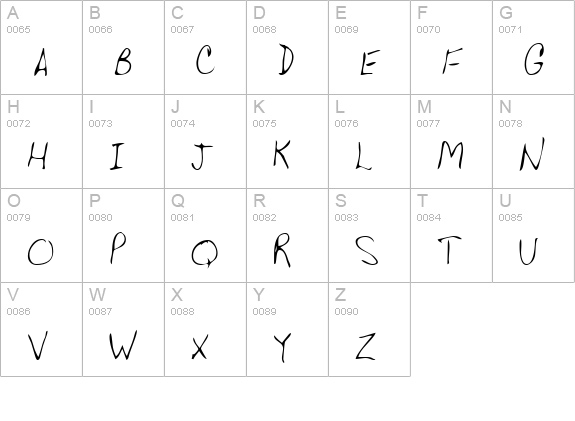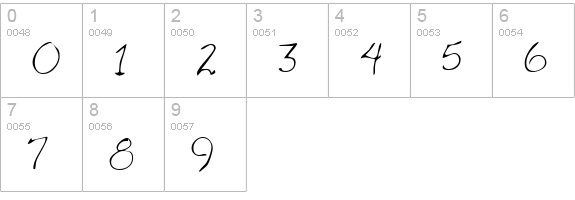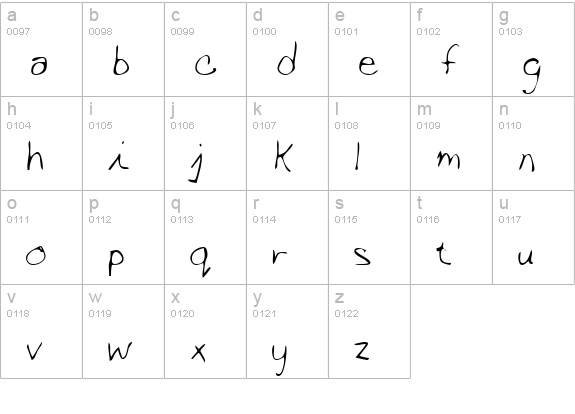
LauriesHand Regular Font Details
LauriesHand Regular is the standard, neutral variant in the LauriesHand typeface family \xE2\x80\x94 well suited to general body text, paragraphs, and standard typographic work.
LauriesHand Regular font is a beautifully crafted typeface that exudes elegance and charm. Its flowing curves and delicate strokes create a sense of sophistication, making it the perfect choice for any design project that requires a touch of class. What sets LauriesHand Regular font apart is the fact that it is not only visually stunning, but also freely available to download at FontsMarket.com. This means that designers and creatives from all walks of life can access this exquisite font without any cost. Whether you are a professional designer or a hobbyist, LauriesHand Regular font offers you the opportunity to elevate your designs without breaking the bank. The versatility of LauriesHand Regular font is another reason why it stands out in the crowd. Its legibility and readability make it suitable for a wide range of applications, from wedding invitations and greeting cards to packaging designs and branding materials. The carefully crafted letterforms ensure that each character is distinct and visually appealing, resulting in a harmonious and aesthetically pleasing overall appearance. With LauriesHand Regular font, you have the freedom to create stunning designs that leave a lasting impression. Its timeless appeal and graceful demeanor make it a go-to choice for those who seek to add a touch of elegance to their projects. Whether you are designing for print or digital platforms, LauriesHand Regular font is sure to captivate your audience and elevate your work to new heights. So why wait? Download LauriesHand Regular font today at FontsMarket.com and unlock the potential to create beautiful designs that will leave a lasting impression. With its free availability and unmatched beauty, LauriesHand Regular font is a must-have for any designer's toolkit.